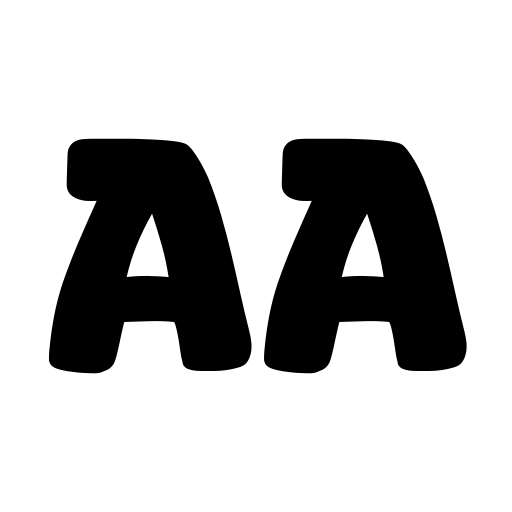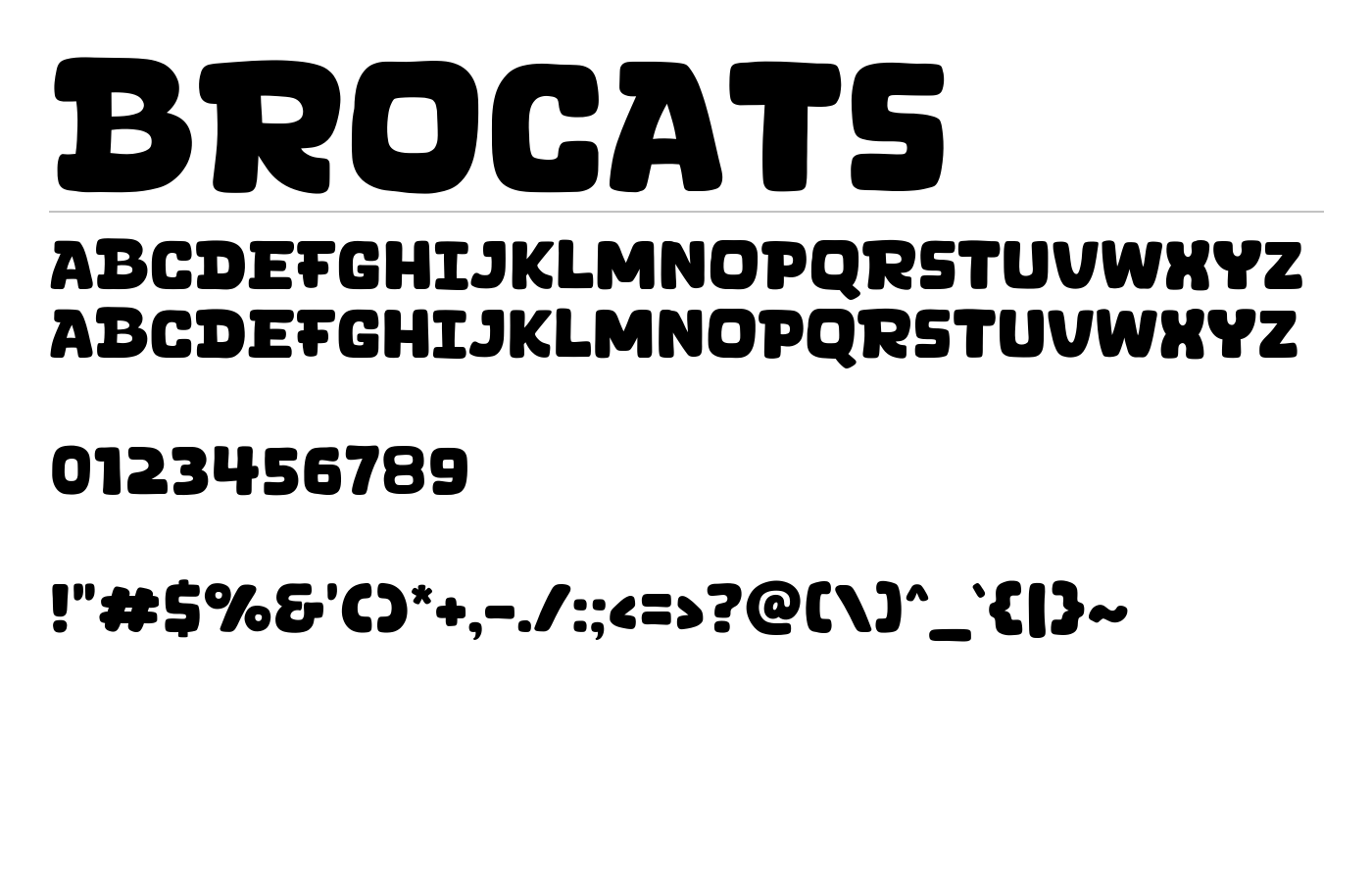
Brocats is a bold, rounded sans serif font with a playful and friendly character. Its thick, even strokes and wide letterforms create a strong, approachable presence, making it ideal for eye-catching headlines, branding, and designs that need a fun, casual vibe. This typeface works well in projects aimed at younger audiences or brands looking to convey warmth and approachability.
Brocats Font
About Brocats Font